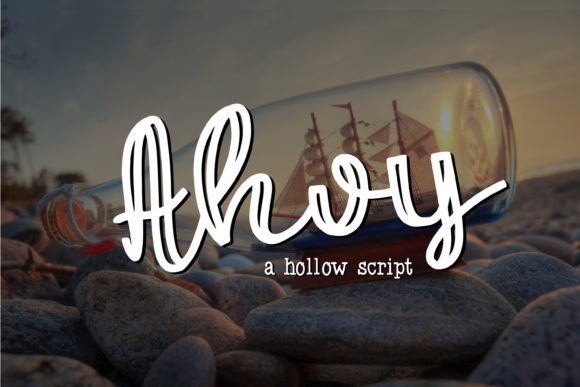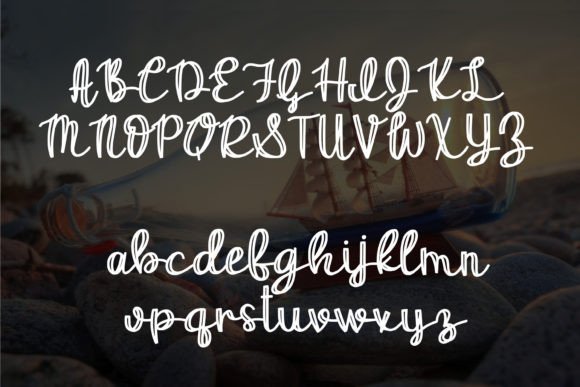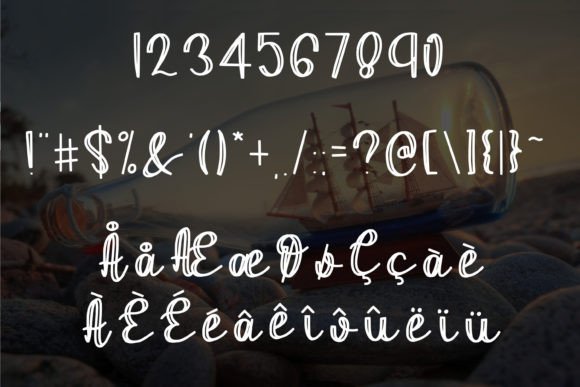
Ahoy Font
About Ahoy Font
Ahoy Matey! If you’re on the lookout for a fun and unique font to infuse some character into your next project, your search ends with Ahoy font! This hollow script font was thoughtfully crafted to provide a faux calligraphy look, making it an ideal choice for adding a touch of whimsy to any design.
The playful and unique nature of Ahoy font makes it perfect for projects that need a lighthearted and creative vibe. Whether you’re working on invitations, posters, branding materials, or any design where a touch of fun is desired, Ahoy stands out as a font that adds a distinctive and whimsical charm.
Imagine Ahoy font bringing a smile to your designs, whether it’s on playful posters, quirky invitations, or any project that calls for a unique and creative touch. The font becomes a key element that not only adds a hollow script aesthetic but also infuses a sense of fun and individuality into your creations.
In summary, Ahoy font is more than just a typeface; it’s a design asset that brings joy and uniqueness to your projects. Embrace its fun and whimsical style confidently, and let Ahoy be the font that adds a delightful touch to your various creative endeavors.